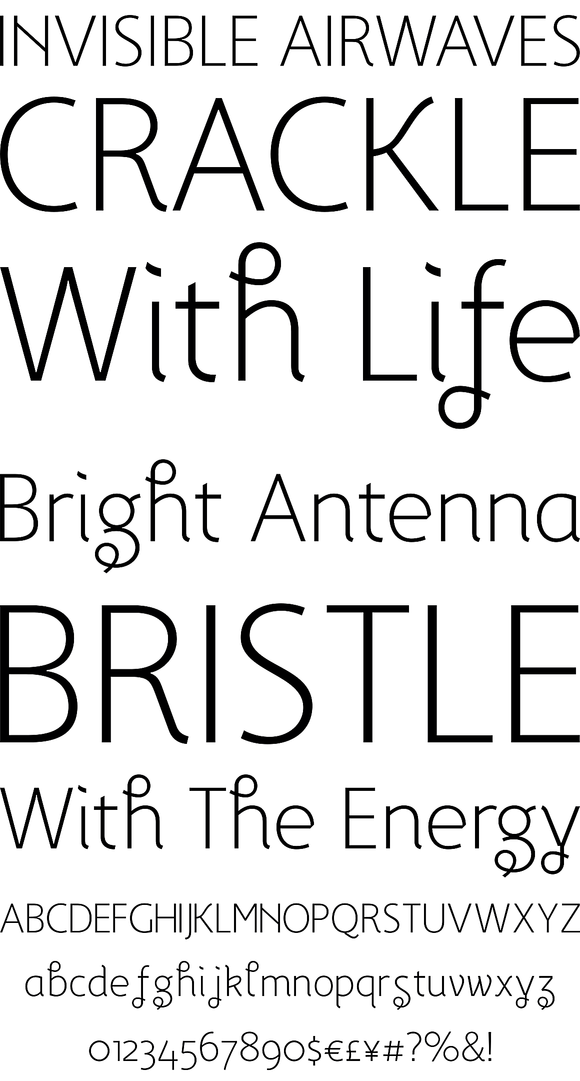
Fox TRF is upright italic typeface with extralight, light, regular, bold and black weight styles. The most distinguished Fox characteristic is the lowercase letters. Their curly, playful and vivid letter forms were derived from handwritten lettering then carefully shaped and adapted onto sans serif category.